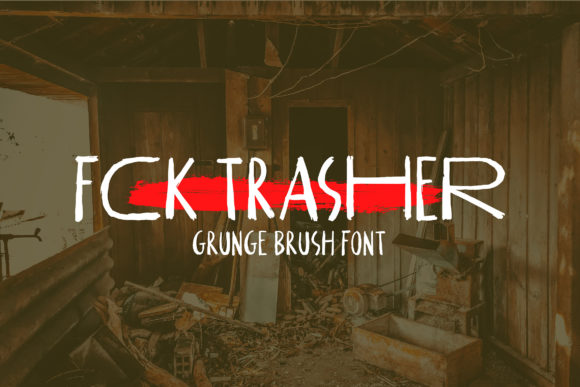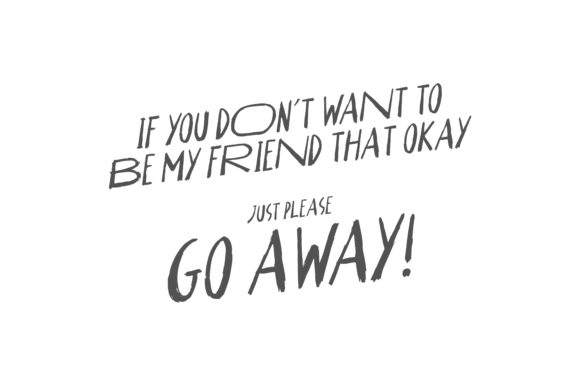
HomeScript FontsFCK Trasher Font Script Fonts FCK Trasher Font FacebookXPinterestWhatsApp FCK Trasher Font Poster 2 About FCK Trasher Font FCK Trasher is a brutally drawn font with a raw and dynamic vibe. DOWNLOAD NOW People also explored Object Font Caliyan Font Fettash Font Manda Font Galinta Font Beniqno Font Hello Hana Font Pecking Order Alphabet Tracing Font 319 0 TagsFCK Trasher Font Previous articleChintya FontNext articleLemon Juice Font LEAVE A REPLY Cancel reply Comment: Please enter your comment! Name:* Please enter your name here Email:* You have entered an incorrect email address! Please enter your email address here Website: Save my name, email, and website in this browser for the next time I comment. Personal Use Free Pretender Personal Use Free Read more about this font Amelline Personal Use Free Read more about this font Husky Stash Personal Use Free Read more about this font Hashira Mt Personal Use Free Read more about this font BLOG To increase your work productivity, choose the most readable fonts. In today's fast-paced work environment, where digital communication and information consumption are integral to our daily routines, the choice of fonts can significantly impact... Top 10 Handwritten Fonts That Elevate Your Designs Exploring Font Trends Best Fonts for YouTube Videos: Make Your Thumbnails Stand Out